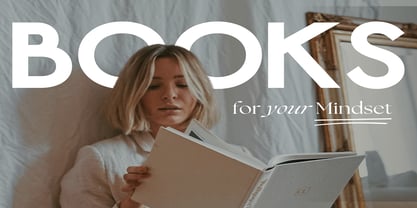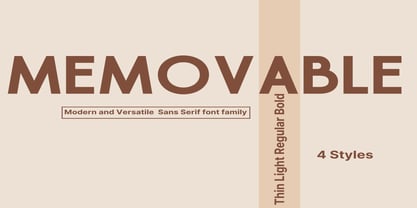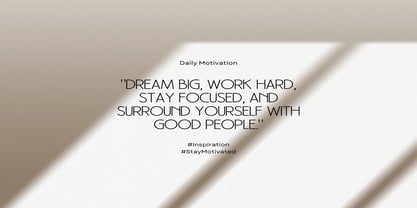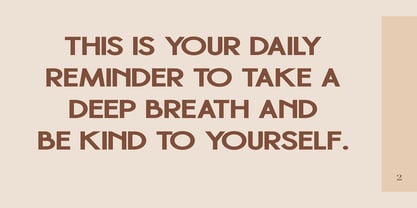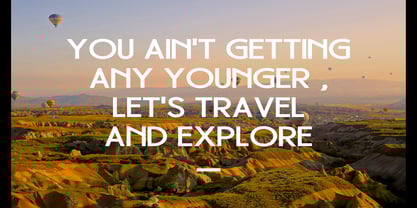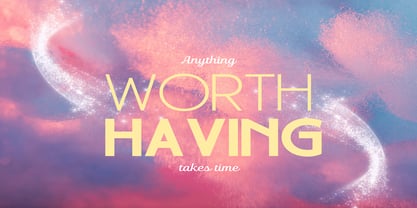
Memovable
by Dream Font
Memovable is a modern and versatile font family, a blend of clean geometric forms and subtle sophistication. Its adaptable style is evident in the precise letterforms and contemporary aesthetic. A harmony of sharp lines and gentle curves. Each font in the family stands alone, impactful and refined in its own right.
Memovable includes four fonts: Thin, Light, Regular and Bold
Memovable Bold– Strong and persuasive for key messages.
Memovable Regular – A balanced and versatile mid-weight for diverse applications.
Memovable Light – Subtle and elegant for refined designs.
Memovable Thin – Delicate and sophisticated for a minimalist touch.